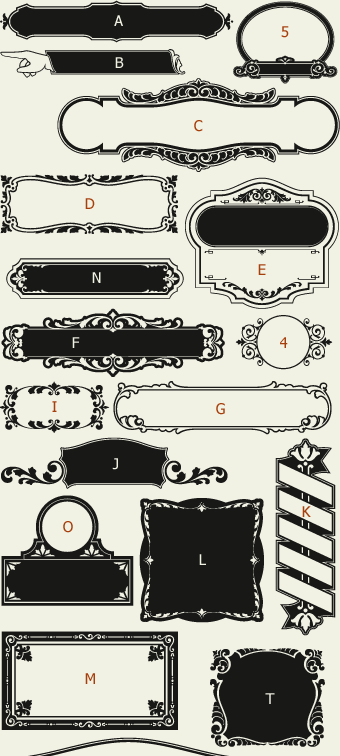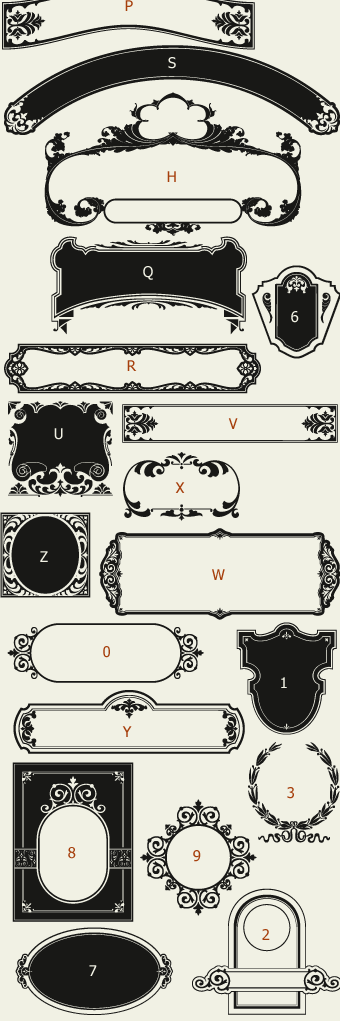
MAIN STREET PANELS ( Y ) WITH SINCLAIR
MAIN STREET PANELS ( 2 ) WITH NEW ENGLISH
MAIN STREET PANELS ( G ) WITH ROSS ANTIQUE ROMAN
MAIN STREET PANELS ( K ) WITH SQUEEZEBOX
MAIN STREET PANELS ( G ) WITH COUNTRY ROAD AND CAMEO
MAIN STREET PANELS ( X ) WITH SMALTS
MAIN STREET PANELS ( 5 ) WITH EQUINOX
MAIN STREET PANELS ( U ) WITH TUSCAN FULL BLOCK |
| LHF Main Street Panels by Mike Jackson |
36 of the best old fashioned panels from Golden Era Studios' "Main Street Collection CD". Each letter generates